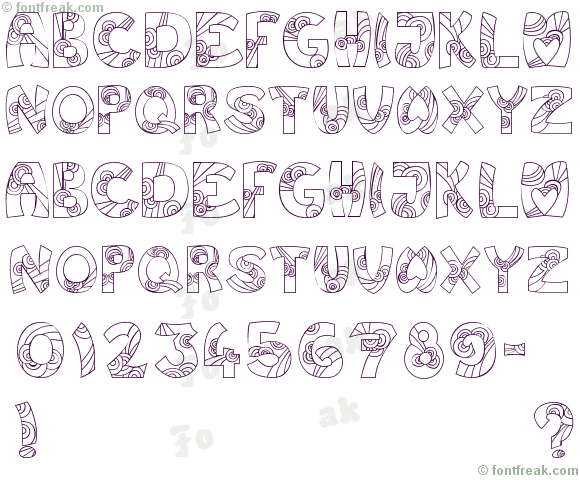
Jump
The Jump font, designed by Heather T. in 2011, is a decorative typeface that showcases a playful and whimsical style. This font stands out with its unique blend of bold strokes and intricate decorative elements, which create a vibrant and engaging visual appeal. The stroke weight varies, giving the letters a dynamic quality that enhances their personality. The spacing is thoughtfully crafted, allowing for easy readability while maintaining a sense of fun and creativity.
Jump is an excellent choice for a variety of specific use cases. It works wonderfully for wedding invitations, where its lively character can add a touch of joy to the occasion. Additionally, the font can be effectively utilized in children’s book covers, capturing the essence of playfulness that appeals to young readers. For graphic designers looking to create eye-catching movie posters, the Jump font serves as a captivating element that draws attention. Restaurant menus can also benefit from its quirky style, making the dining experience feel more inviting and enjoyable.
What sets the Jump font apart is its distinctive character and versatility. Its ability to convey a sense of whimsy while remaining functional makes it a standout choice for a wide range of design projects. If you’re looking to add a unique flair to your work, consider the Jump font free download to explore its delightful potential.